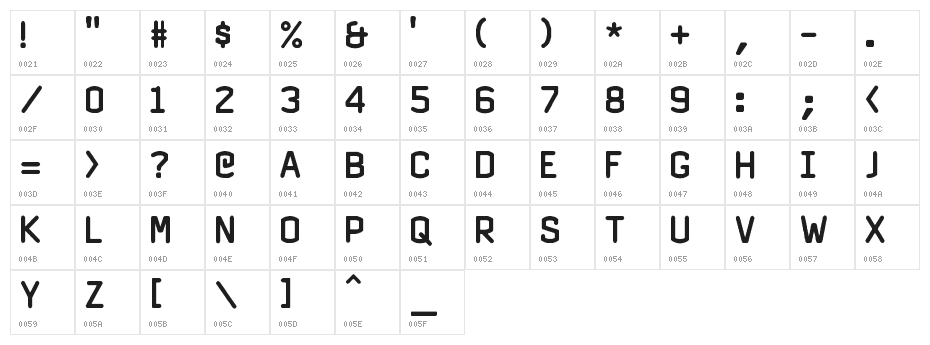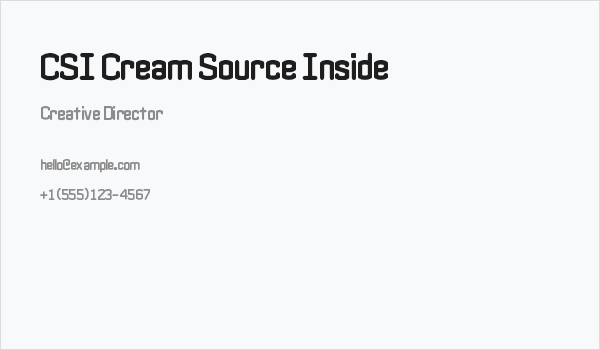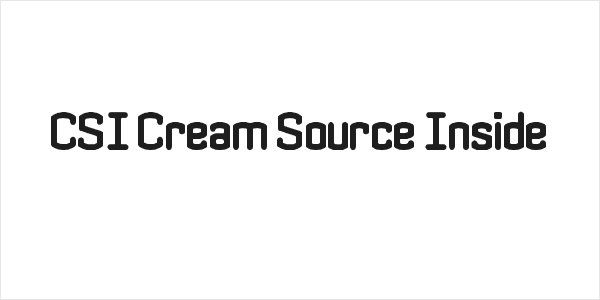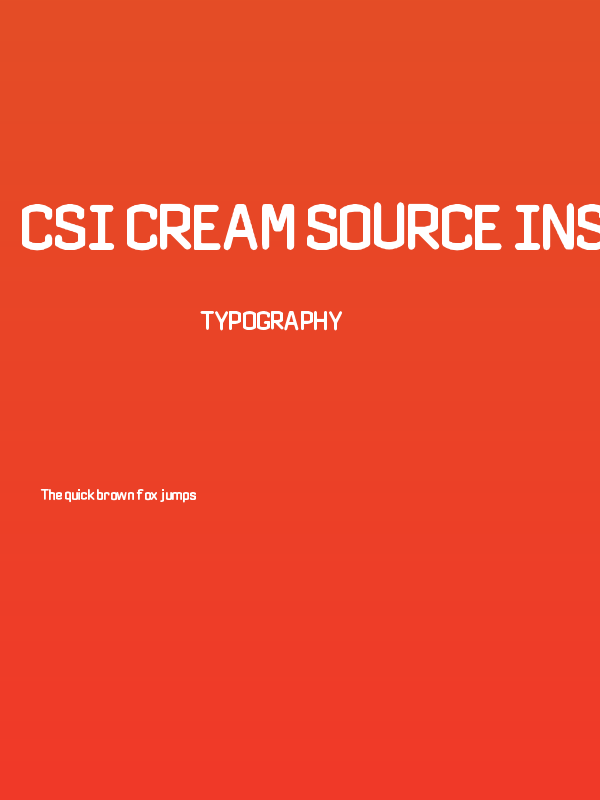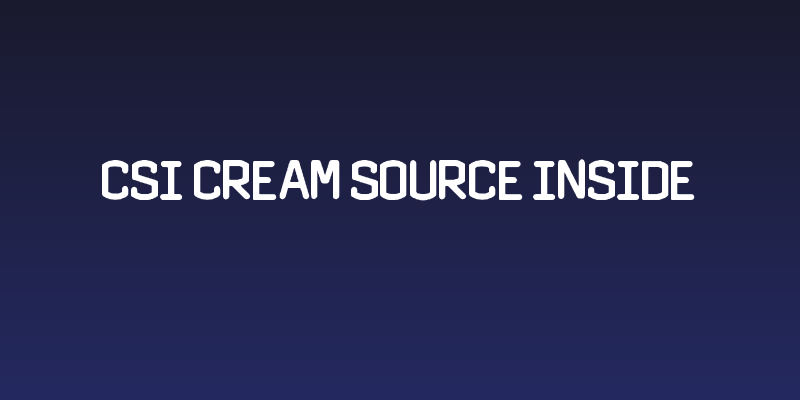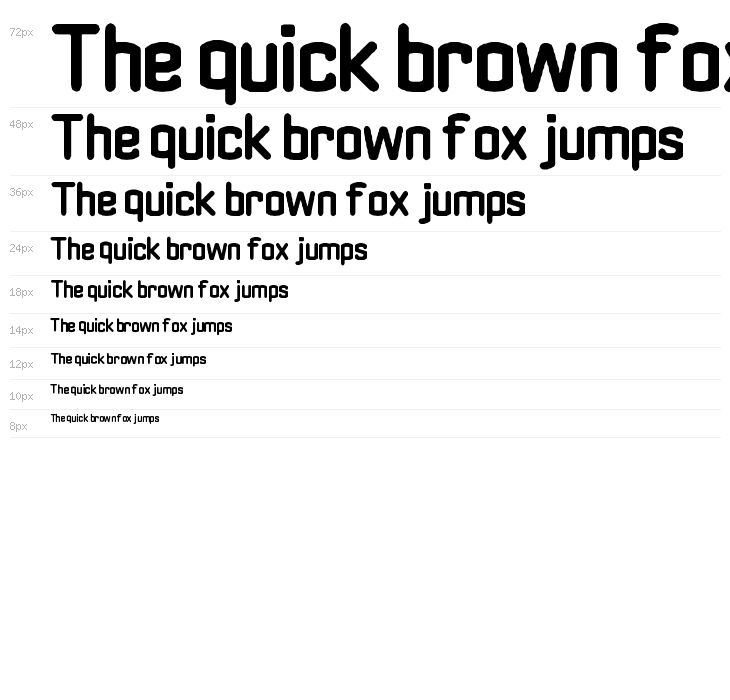
CSI Cream Source Inside Font
CSI Cream Source Inside Description
This font features a bold, rounded style with a modern and friendly appearance. The characters are uniform in width, giving it a monospaced feel, yet they maintain a playful and approachable aesthetic. The rounded edges soften the overall look, making it suitable for casual and informal designs. The uppercase and lowercase letters are well-balanced, and the numerals are clear and easy to read. Special characters are distinct and maintain the same rounded style, ensuring consistency across all glyphs.